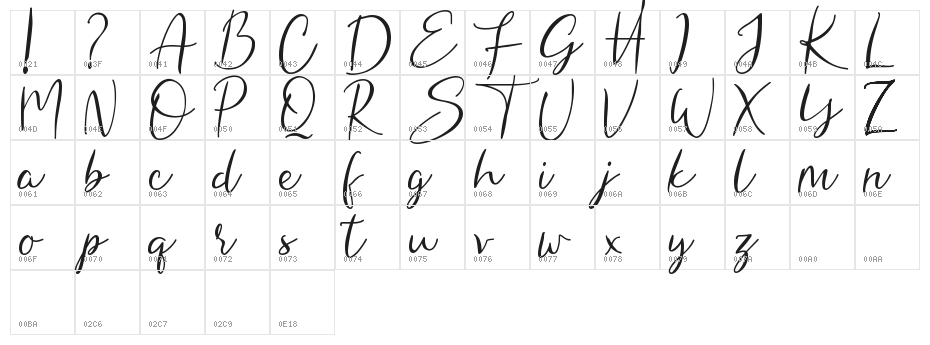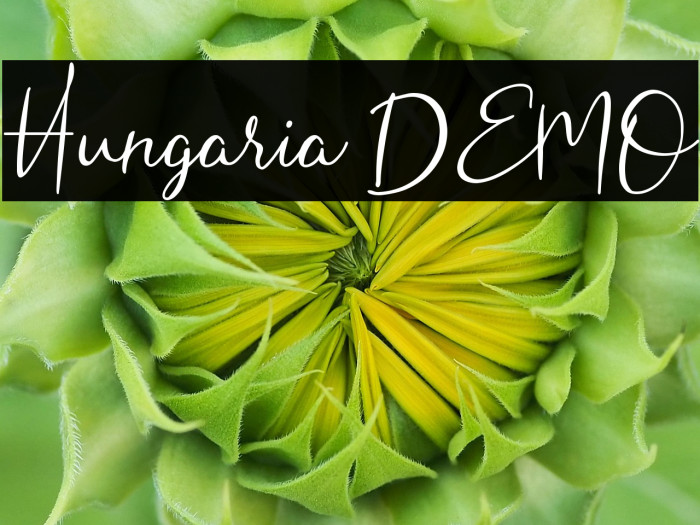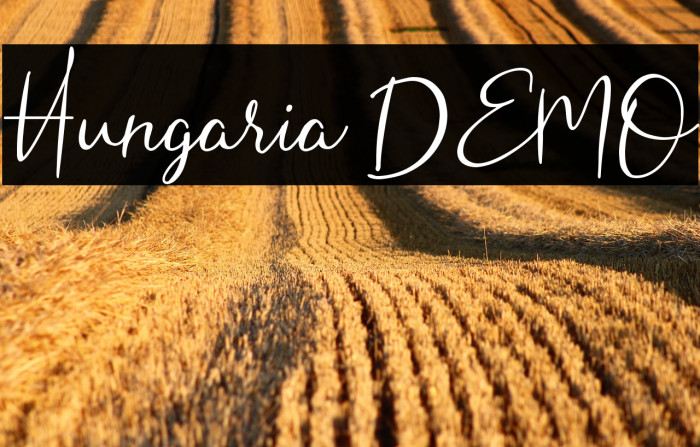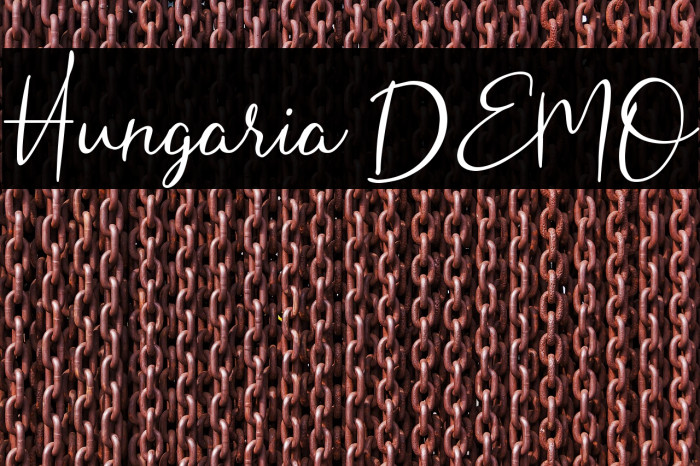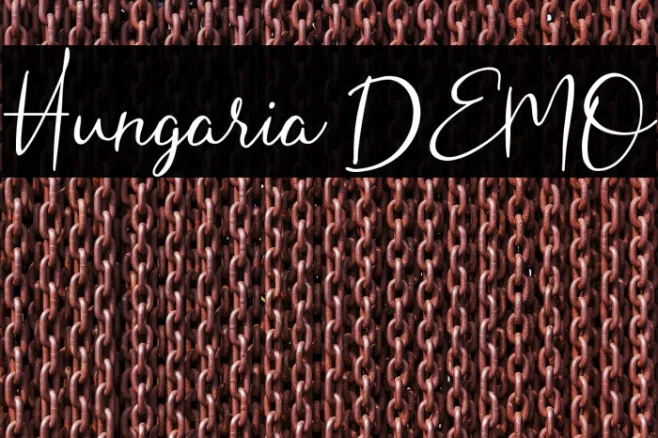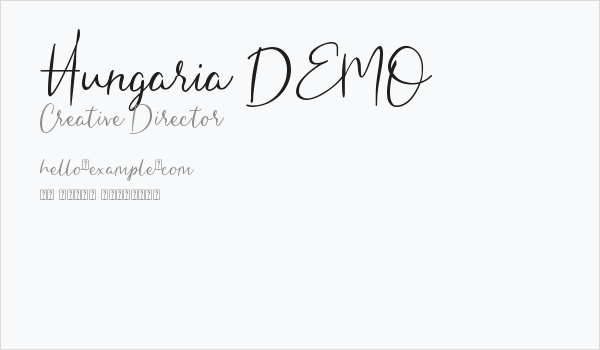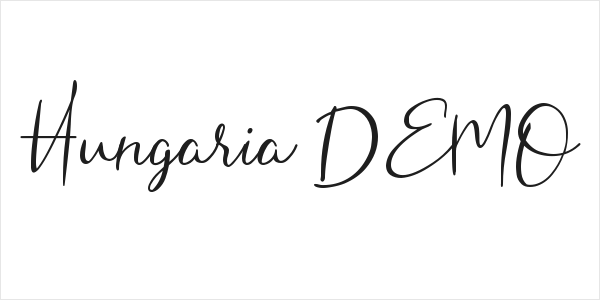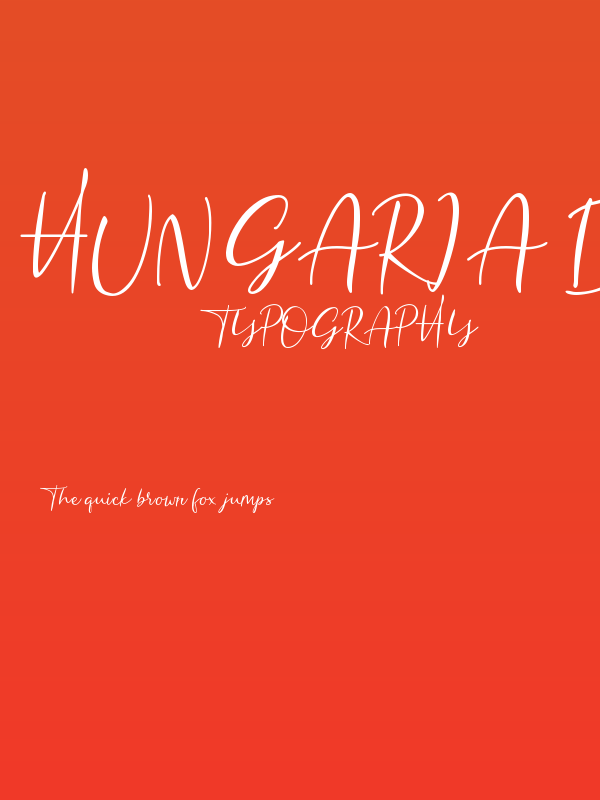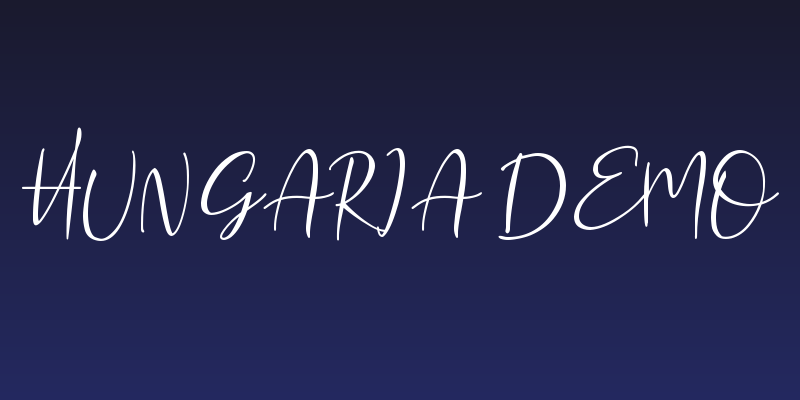
Hungaria DEMO Font
Hungaria DEMO Description
This font features a dynamic and fluid script style, characterized by its elegant and flowing letterforms. The uppercase letters have a distinct flair with elongated strokes and smooth curves, giving a sense of movement and grace. The lowercase letters maintain a cohesive style, with some letters connecting seamlessly, enhancing the handwritten appearance. The font exudes a sense of sophistication and creativity, making it suitable for projects that require a personal touch. The overall design is modern yet timeless, offering versatility in various design contexts.
Use CaseLogos, Headlines, Invitations
Proposed ProjectsIdeal for wedding invitations, branding, greeting cards, and elegant packaging designs.